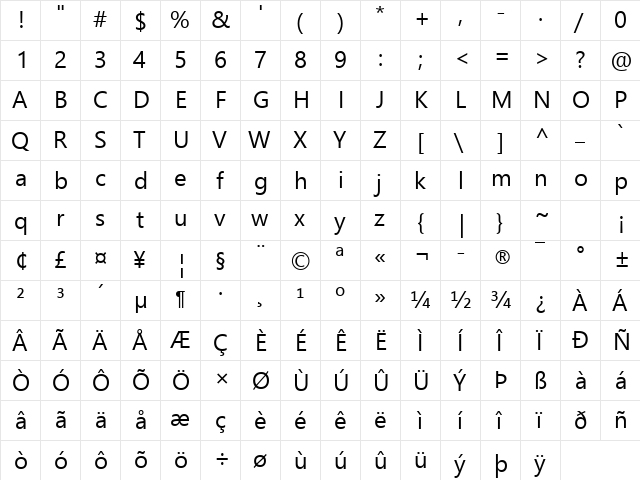
Leelawadee UI Normal
| Foundry | Microsoft Corporation |
Design Context for Leelawadee UI Typeface
Leelawadee UI takes a measured approach to typography — its balanced proportions and neutral character make it a reliable workhorse for both digital and print work.